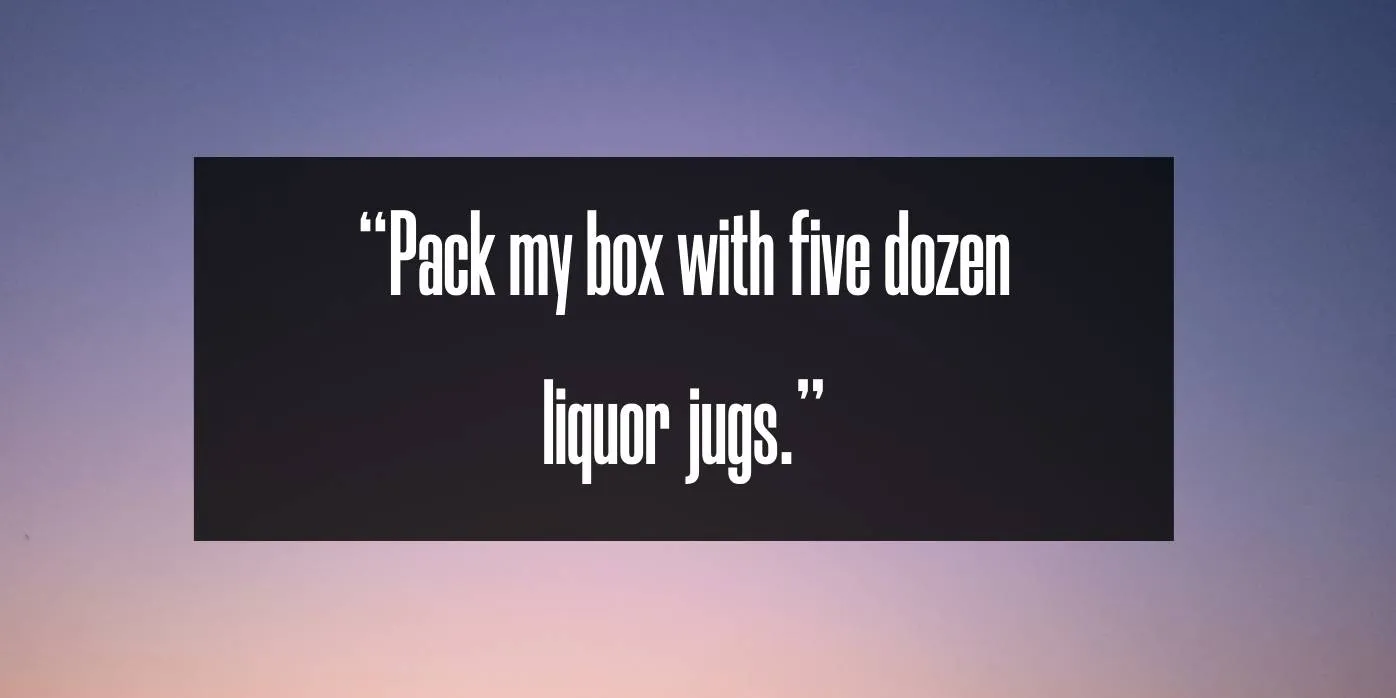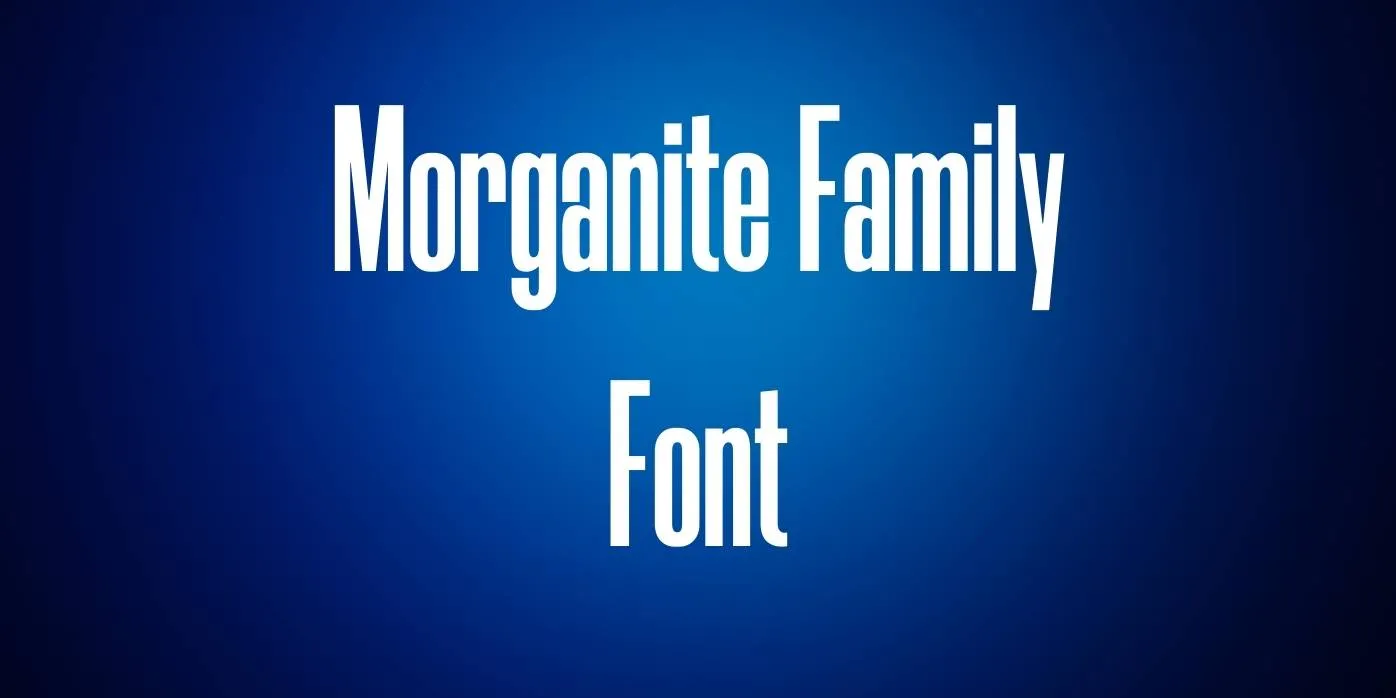
Morganite Family Font
Today, we present a very stylish font that is famous with the name Morganite Family Font. Rajesh Rajput is the developer of this typeface and it belongs to the Sans Serif typeface. This stunning Font has come in four styles including Regular, Bold, Italic, and Bold Italic. All of these styles contain True type features.
Also, this elegant font has available in two formats TTF and OTF. This typeface has is unique and powerful weights. It is well specified by the CSS. Morganite Family Font is an ideal choice for headlines as well as small text content because it supports many international languages.
So, you can easily create web designing, branding, advertising, logos, and many more other striking designs just by using this fine quality font. Another similar Compacta Font is best for various designs. This cozy font along with its outstanding features. You can enjoy its outstanding results.